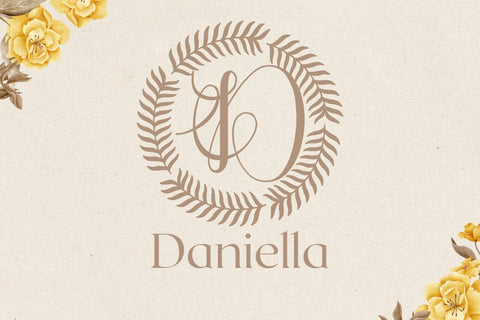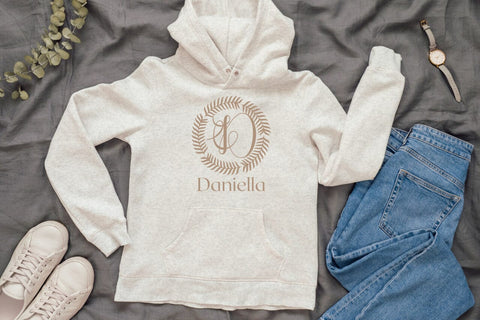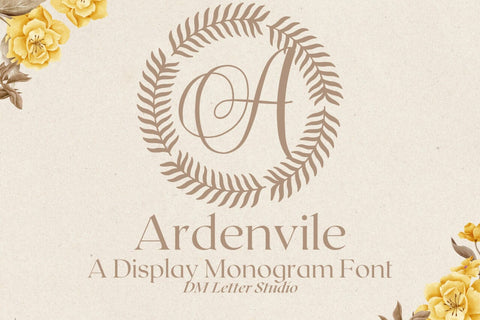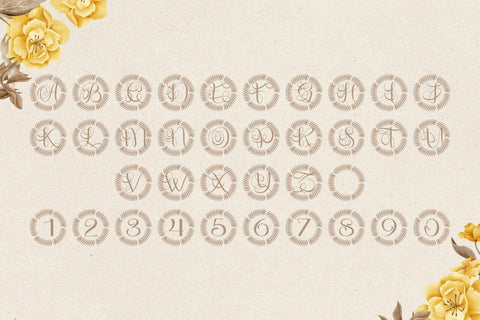
Ardenvale Monogram Font
Meet Ardenvale, the Monogram Font
Ardenvale Monogram Font turns simple initials into calm, elegant marks. The lines feel smooth and balanced. Counters stay open, so even tiny tags look clear. Use it for wedding suites, boutique logos, gift packaging, and keepsake items. Moreover, this Monogram Font pairs beautifully with soft serifs and modern sans fonts. Therefore, your layouts feel refined without extra effort.
Where the Monogram Font shines
Set single, double, or triple initials for logos and seals. Then add thin borders, laurel rings, or simple shapes around the mark. Since Ardenvale favors symmetry, you build neat layouts in minutes. As a result, your thumbnails stand out on crowded marketplaces. Also, the letters scale well from jewelry cards to large venue signs.
Fast setup, polished results
Install the files and start designing right away in Canva and Adobe apps. The curves stay smooth, so foil, emboss, and engraving look crisp. Also, vinyl cuts for boxes, tags, and labels remain clean. Therefore, you can reuse Ardenvale across full product suites. Next, create color stories in champagne, blush, charcoal, and deep navy for different seasons. Finally, save a few base templates and just swap letters and hues for each client.
Design tips for Ardenvale Monogram Font
Keep initials large and let negative space breathe. Pair the main monogram with a quiet serif or humanist sans for body text. Meanwhile, add micro shadows, fine-line frames, or a thin inner stroke for depth. Because the structure feels airy, metallic accents and textured papers raise the perceived value. However, keep wording short and let the Monogram Font stay the hero.
Select stylistic alternates for key letters
Curves tuned for foil, letterpress, engraving, and clean vinyl cutting
Why creators choose this Monogram Font
You want elegance that reads at a glance and still works fast. Ardenvale Monogram Font delivers both. It catches the eye in thumbnails, speeds your layout process, and keeps your brand voice consistent. So invitations, menus, tags, and boxes all feel like one family.